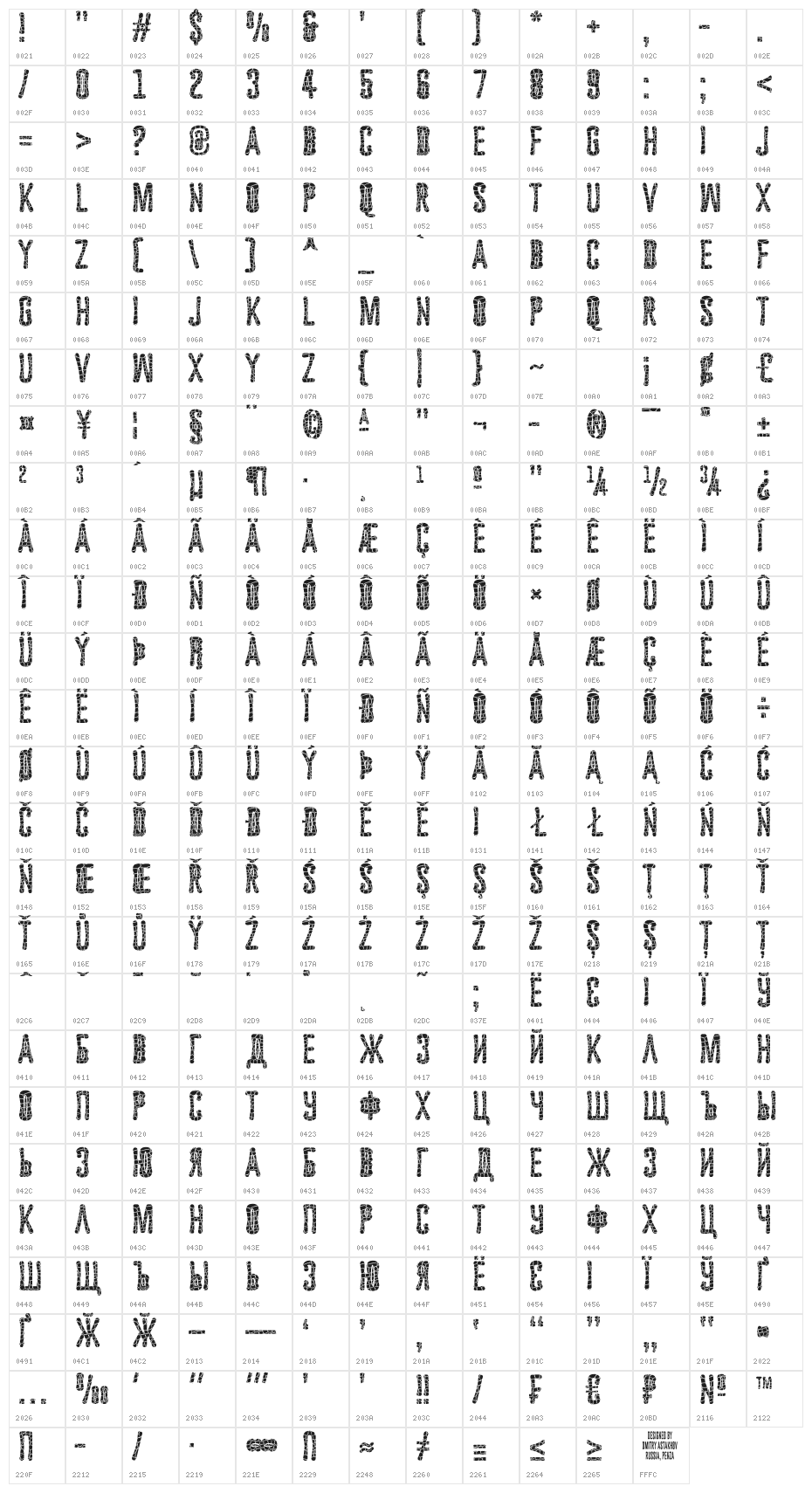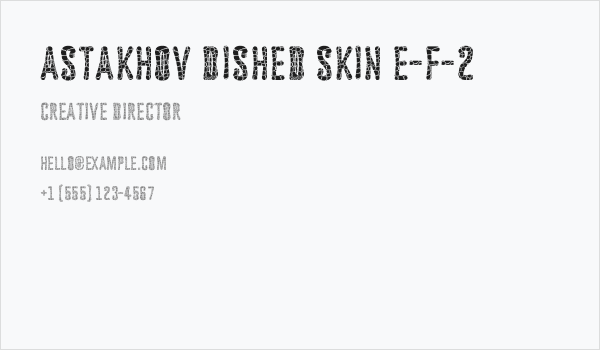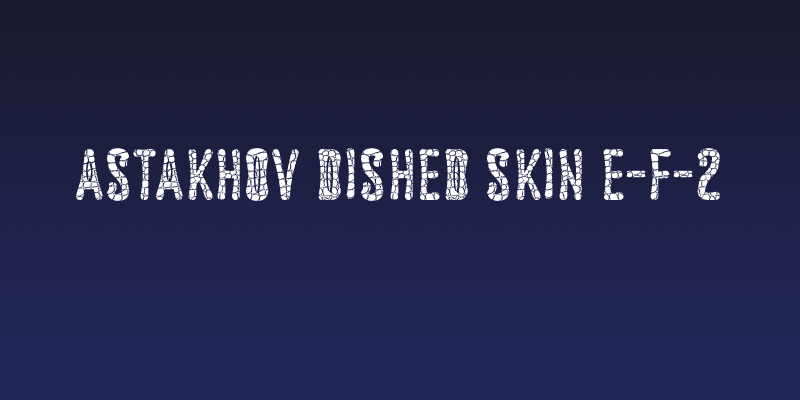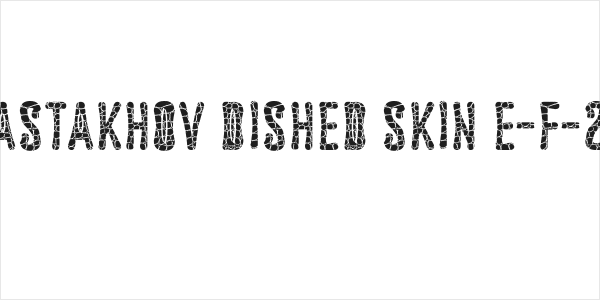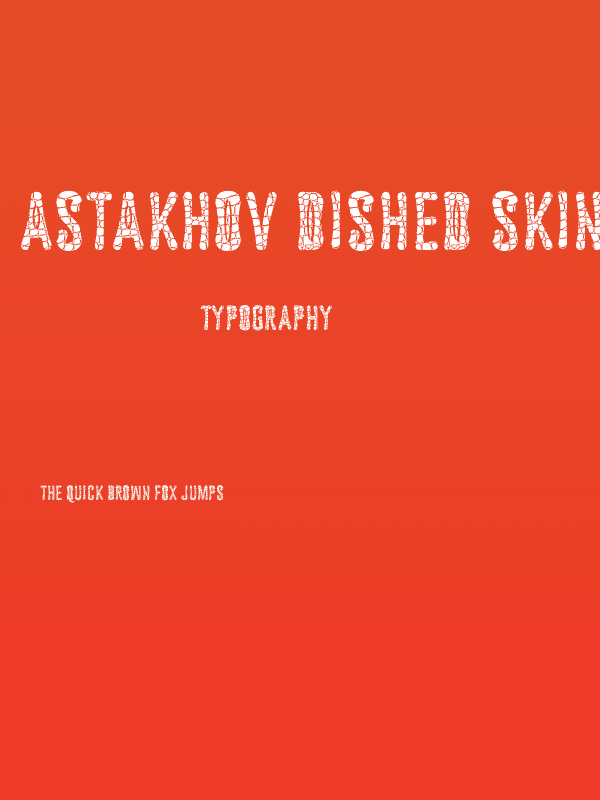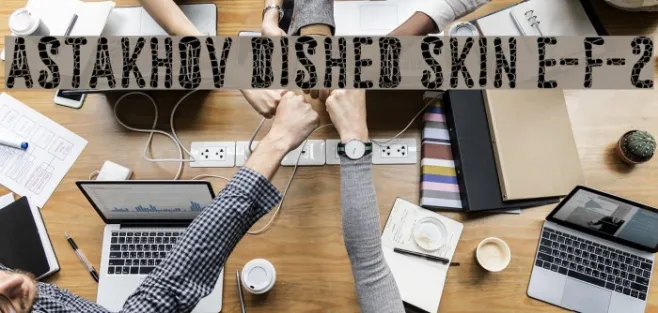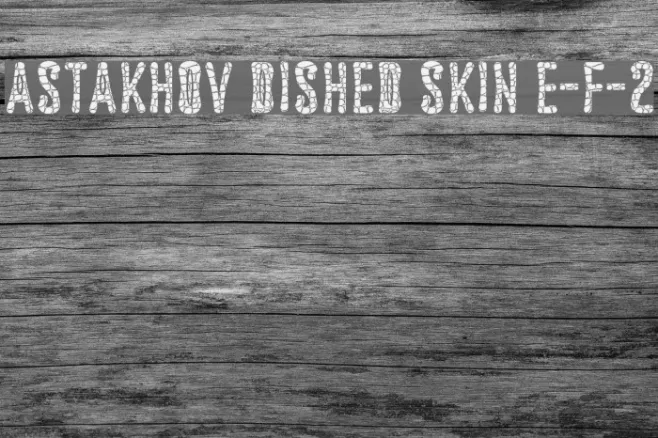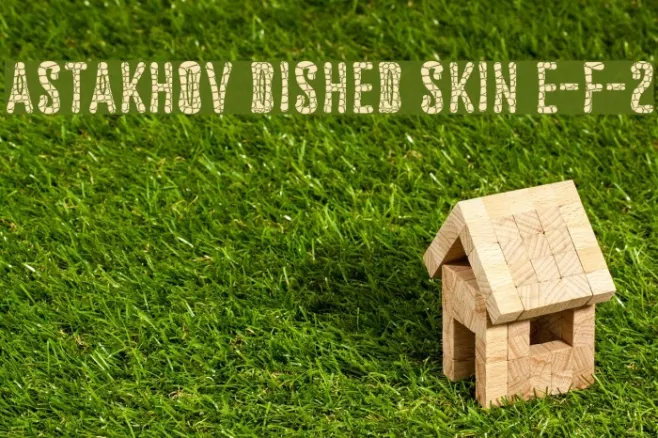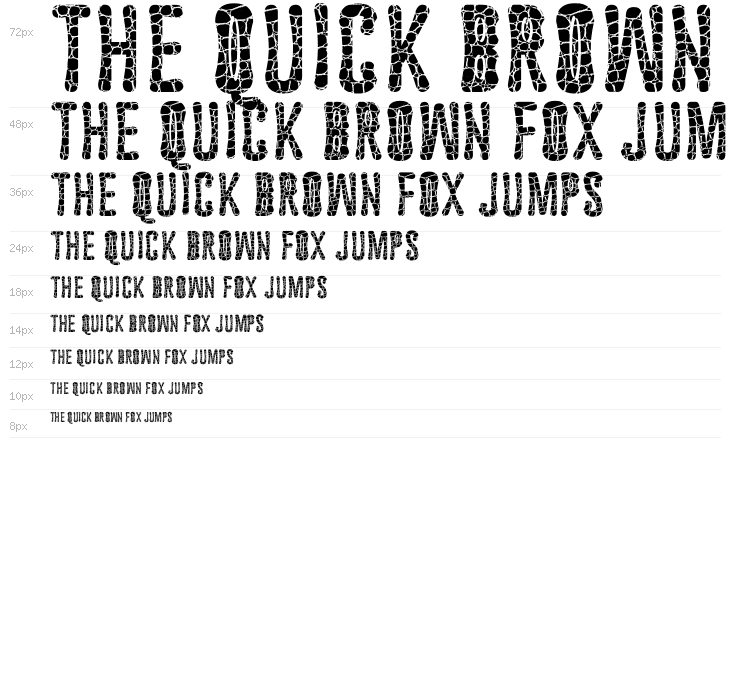
Astakhov Dished Skin E-F-2 Font
Astakhov Dished Skin E-F-2 Description
This font features a unique, textured design that resembles cracked or shattered surfaces, giving it a distinct and edgy appearance. The characters are bold and have a decorative, almost graffiti-like style, making them stand out prominently. The uppercase and lowercase letters maintain a consistent design, with each character exhibiting the same cracked pattern. Numbers and special characters follow the same aesthetic, ensuring uniformity across the font. This font's striking visual style makes it ideal for projects that require a bold statement or an artistic touch.
| Proposed Projects | Ideal for album covers, street art-inspired designs, posters, and branding projects that require a bold, artistic flair. |